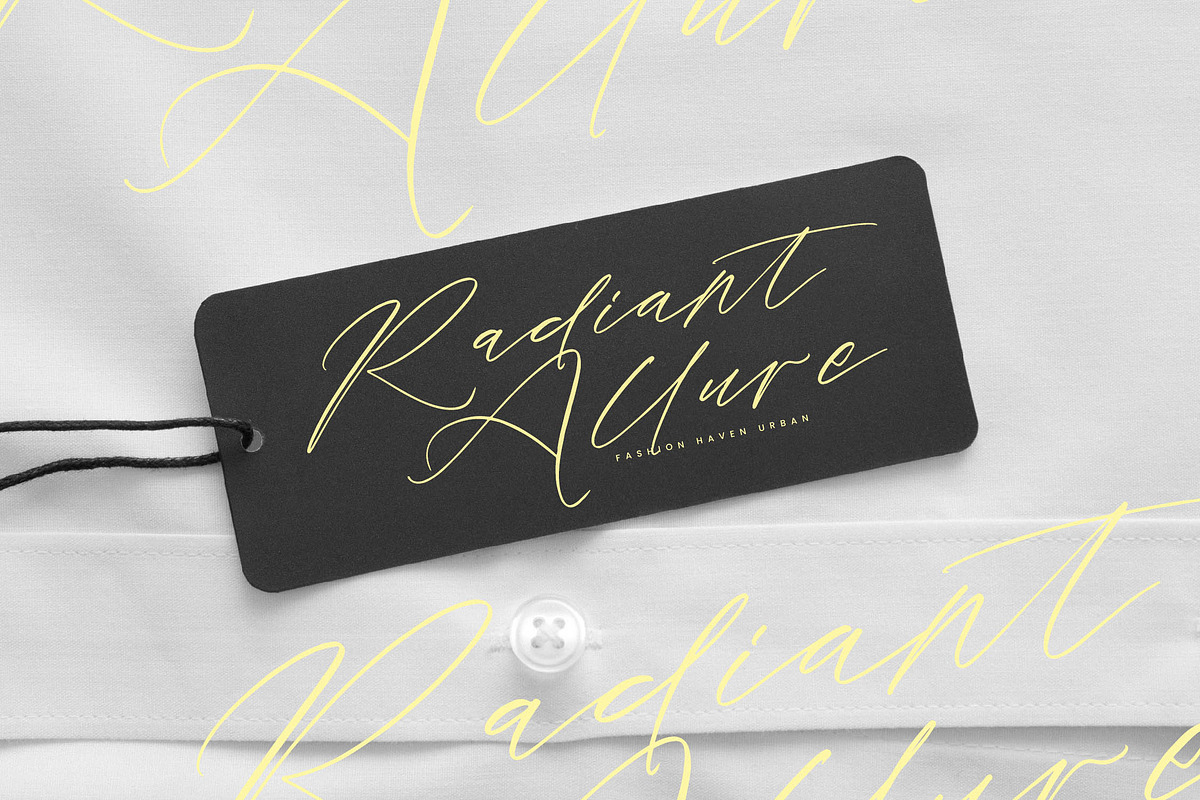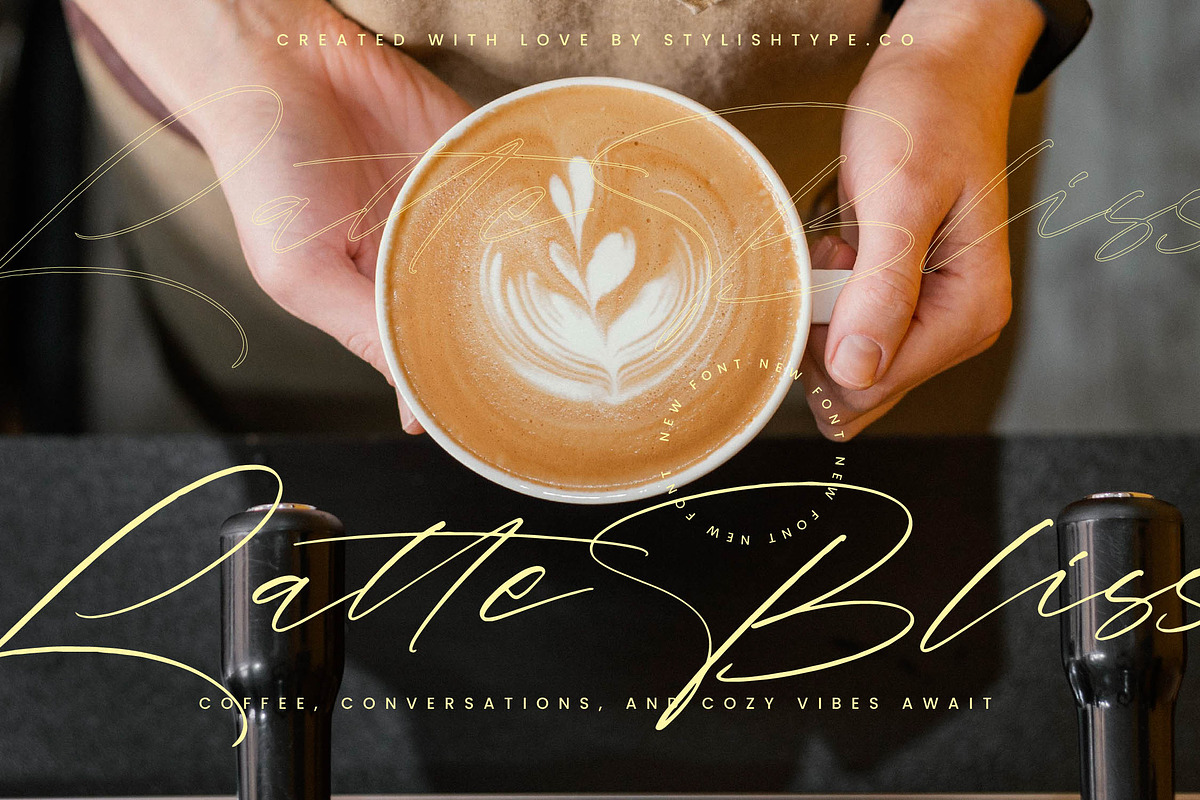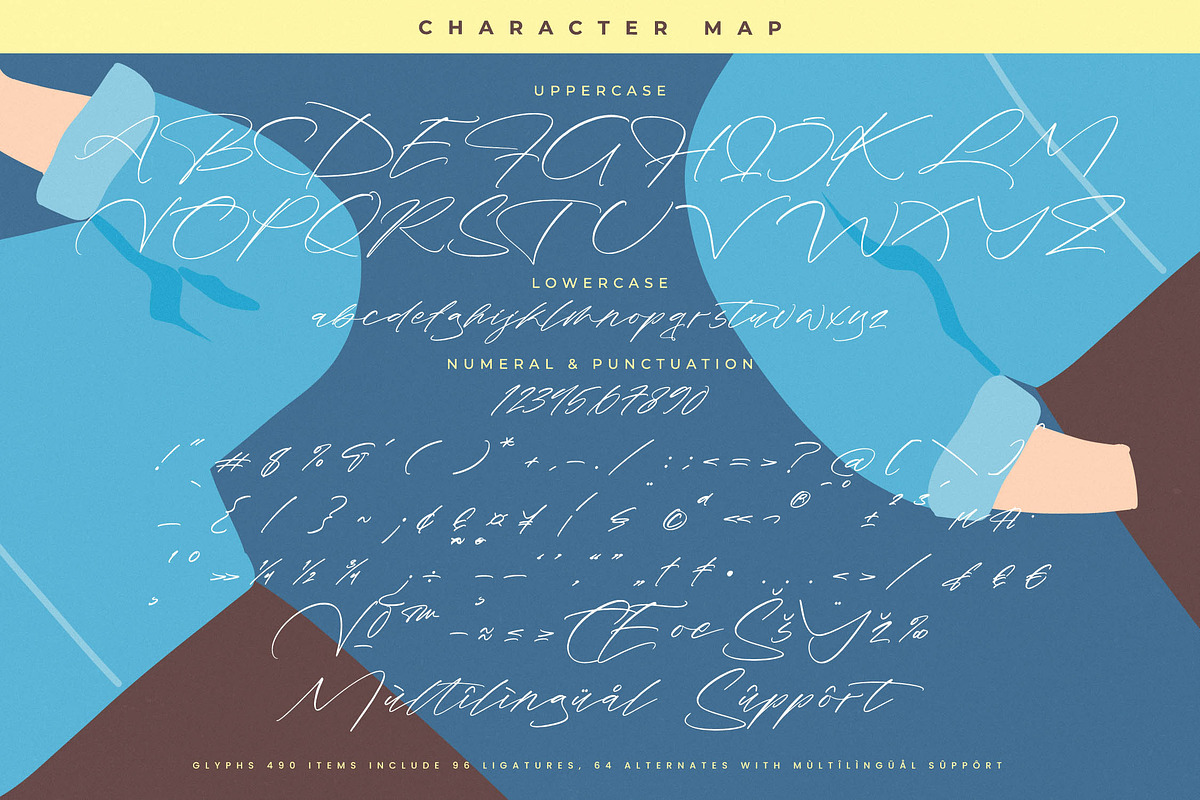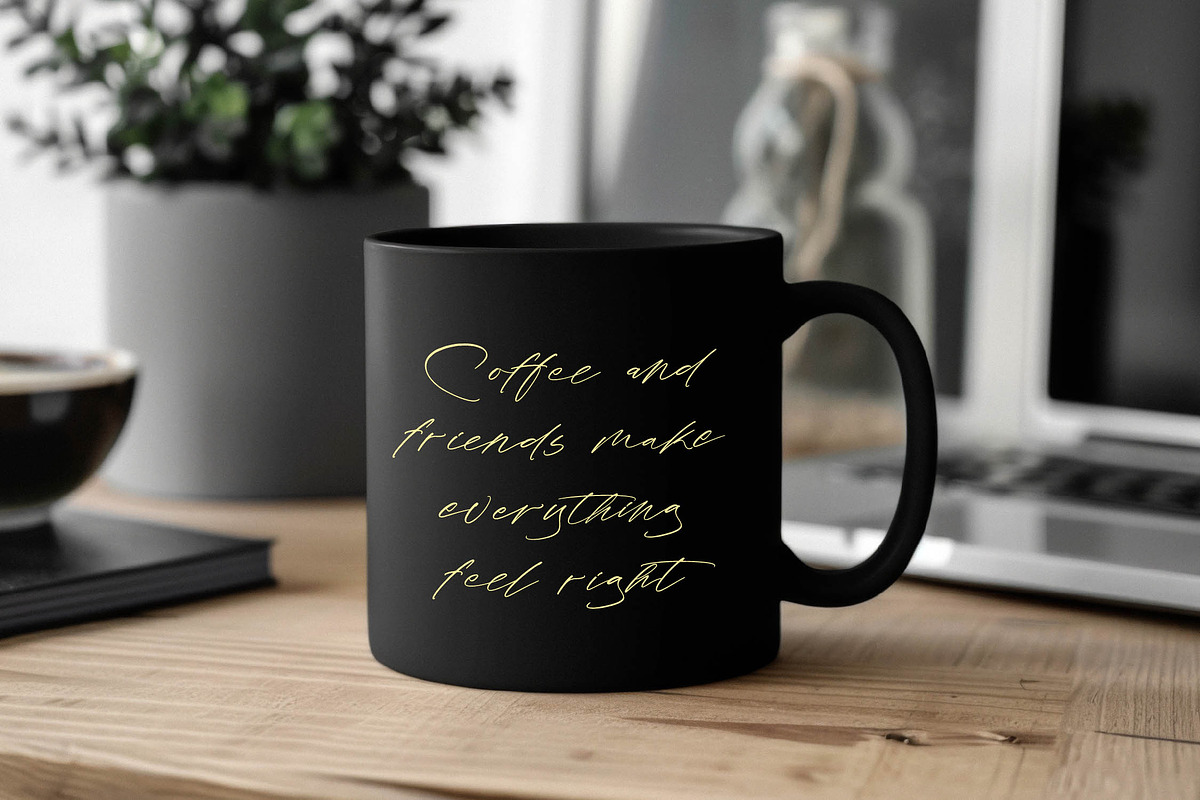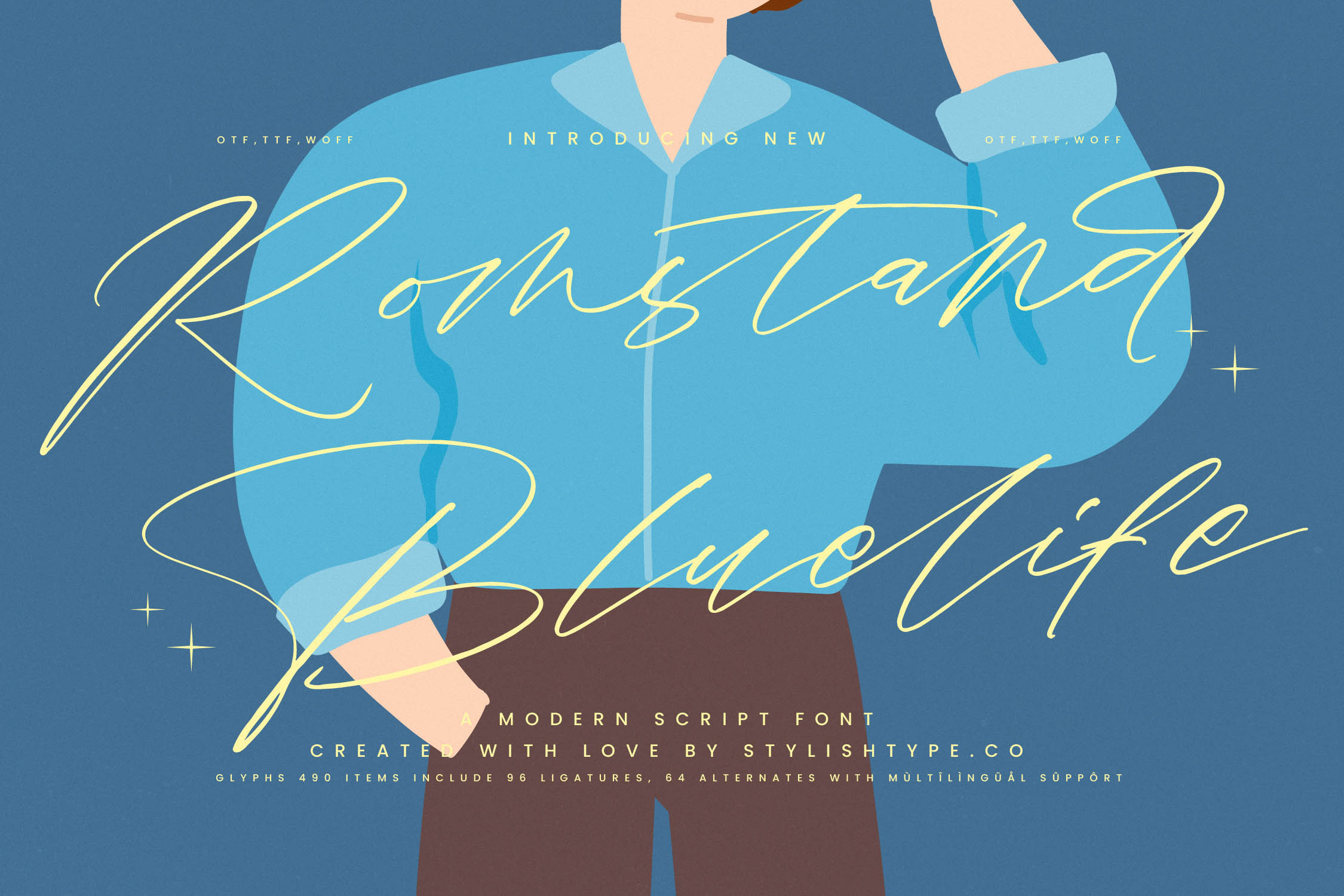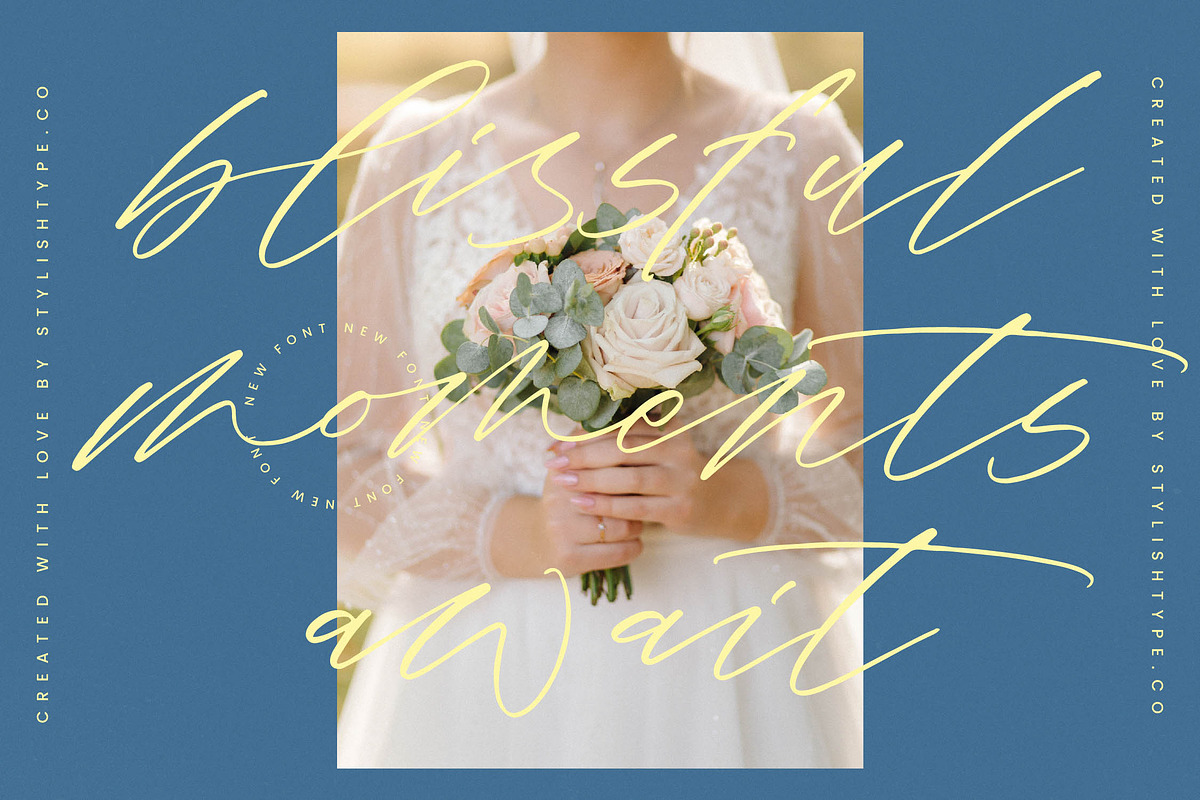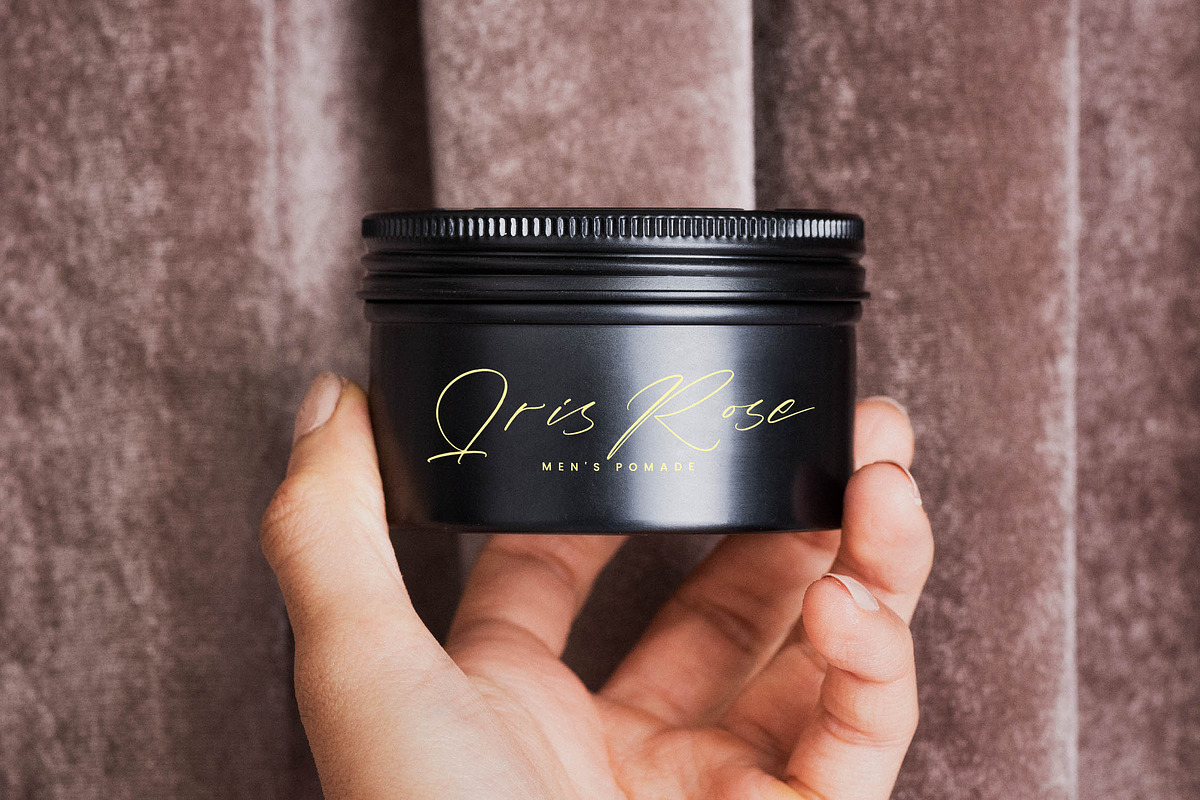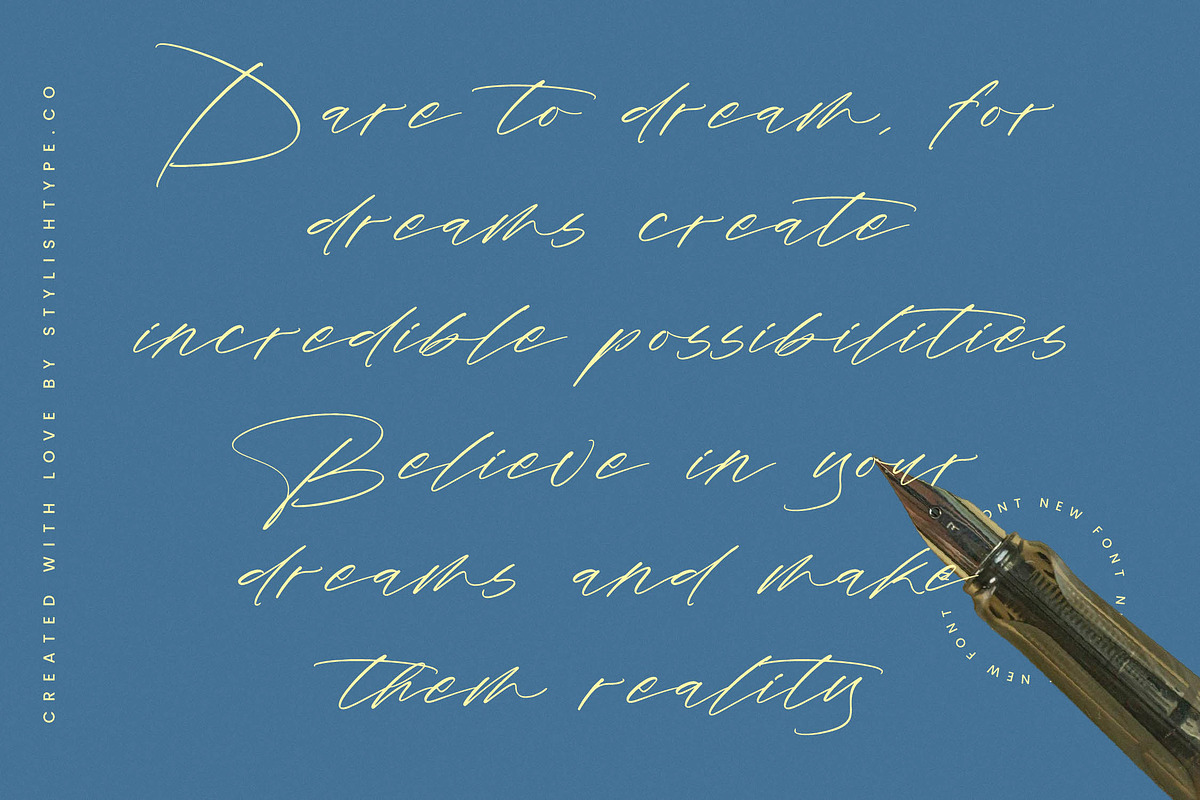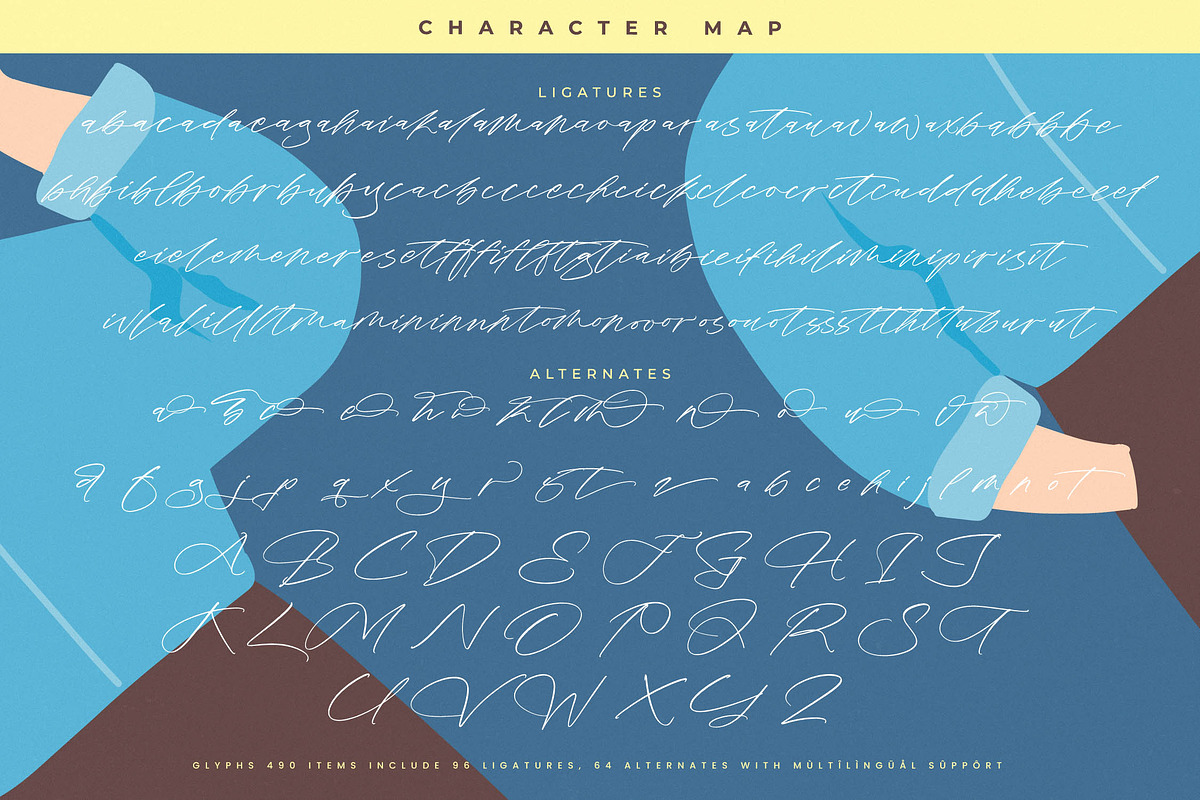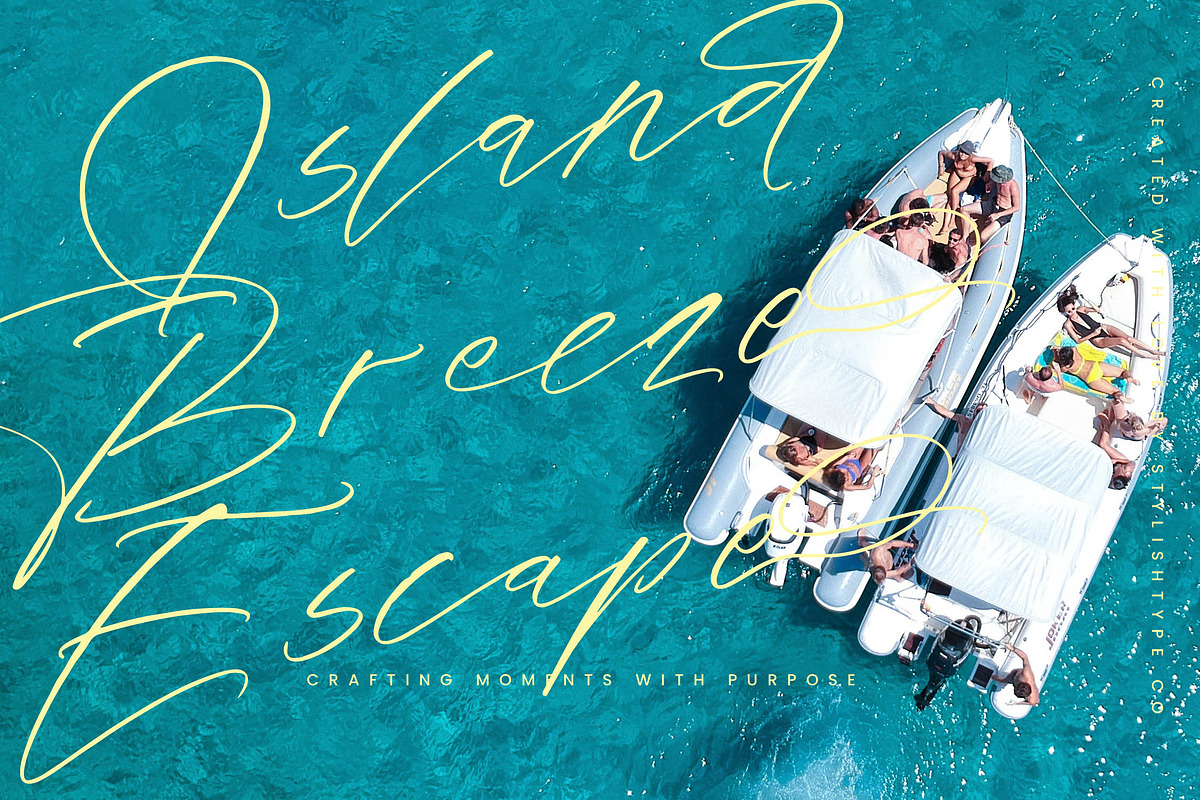
Romstand Bluelife Modern Script Font
Romstand Bluelife - Modern Script Font , from Stylishtype.Co , Suitable for any projects such as: logos, branding projects, homeware designs, product packaging, mugs, quotes, posters, shopping bags, t-shirts, book covers, name card, invitation cards, greeting cards, label, photography, watermark, special events, and all your other luxury and beautiful projects that need a Luxury Script taste.
- 96 Ligature 64 Alternates & Swashes